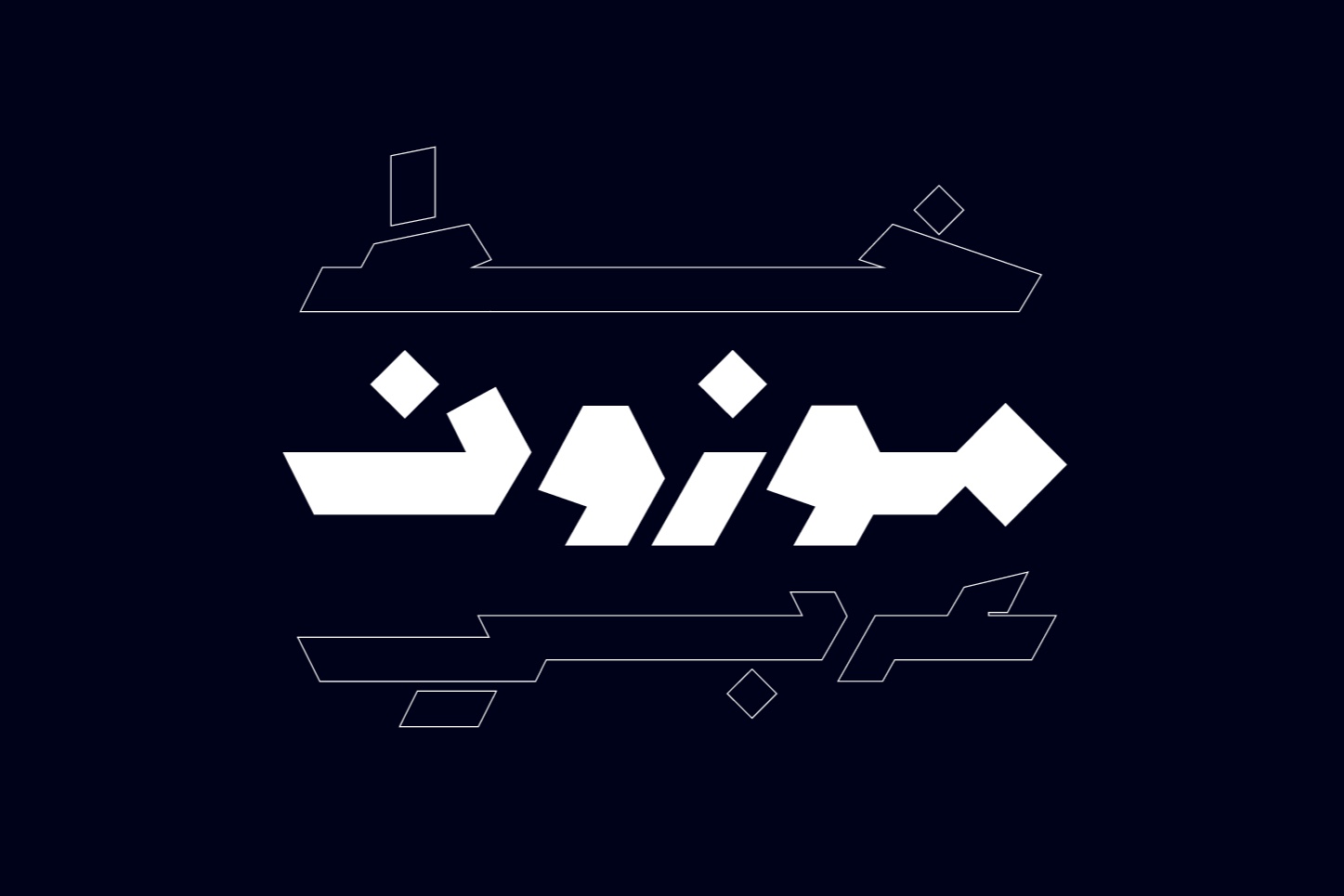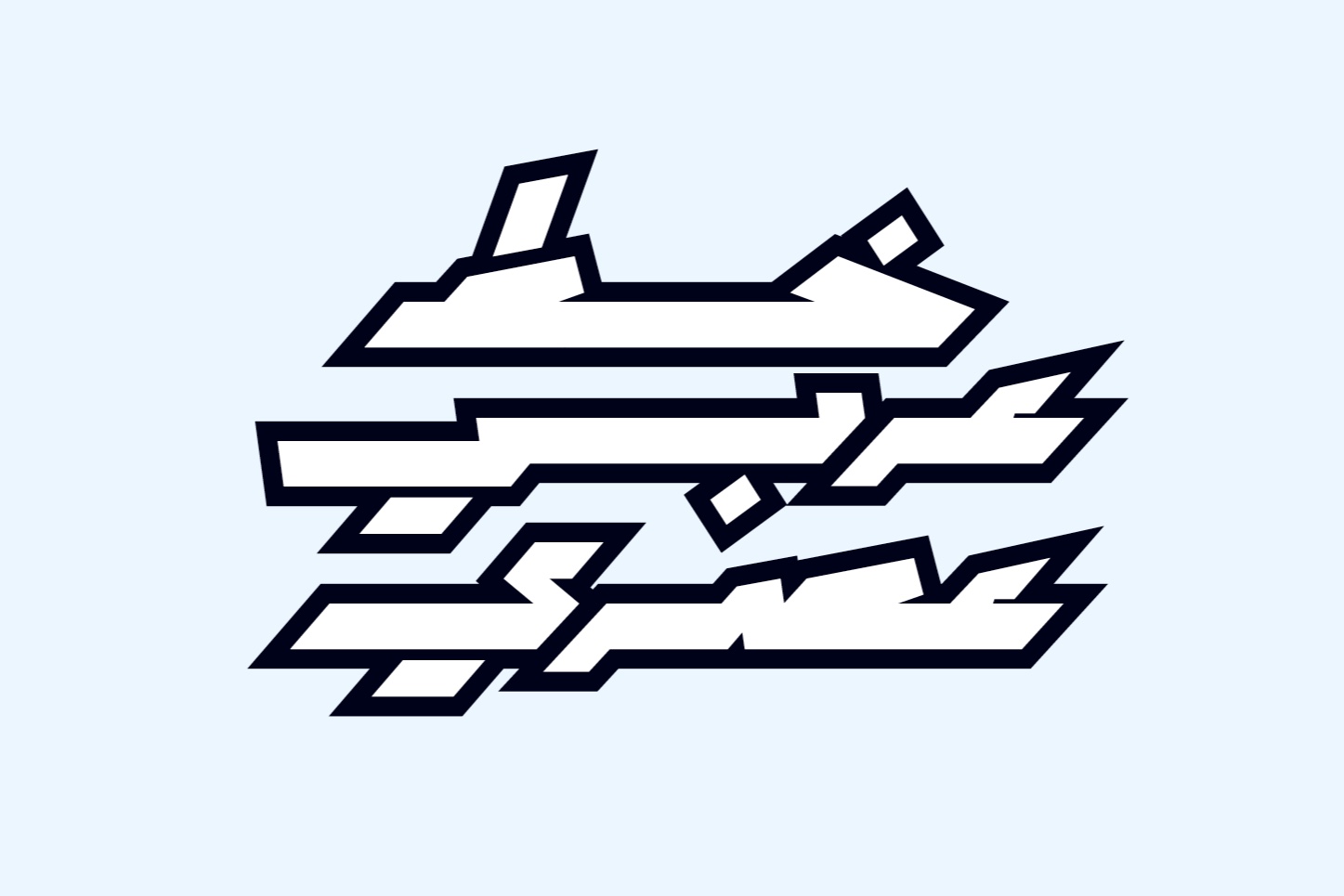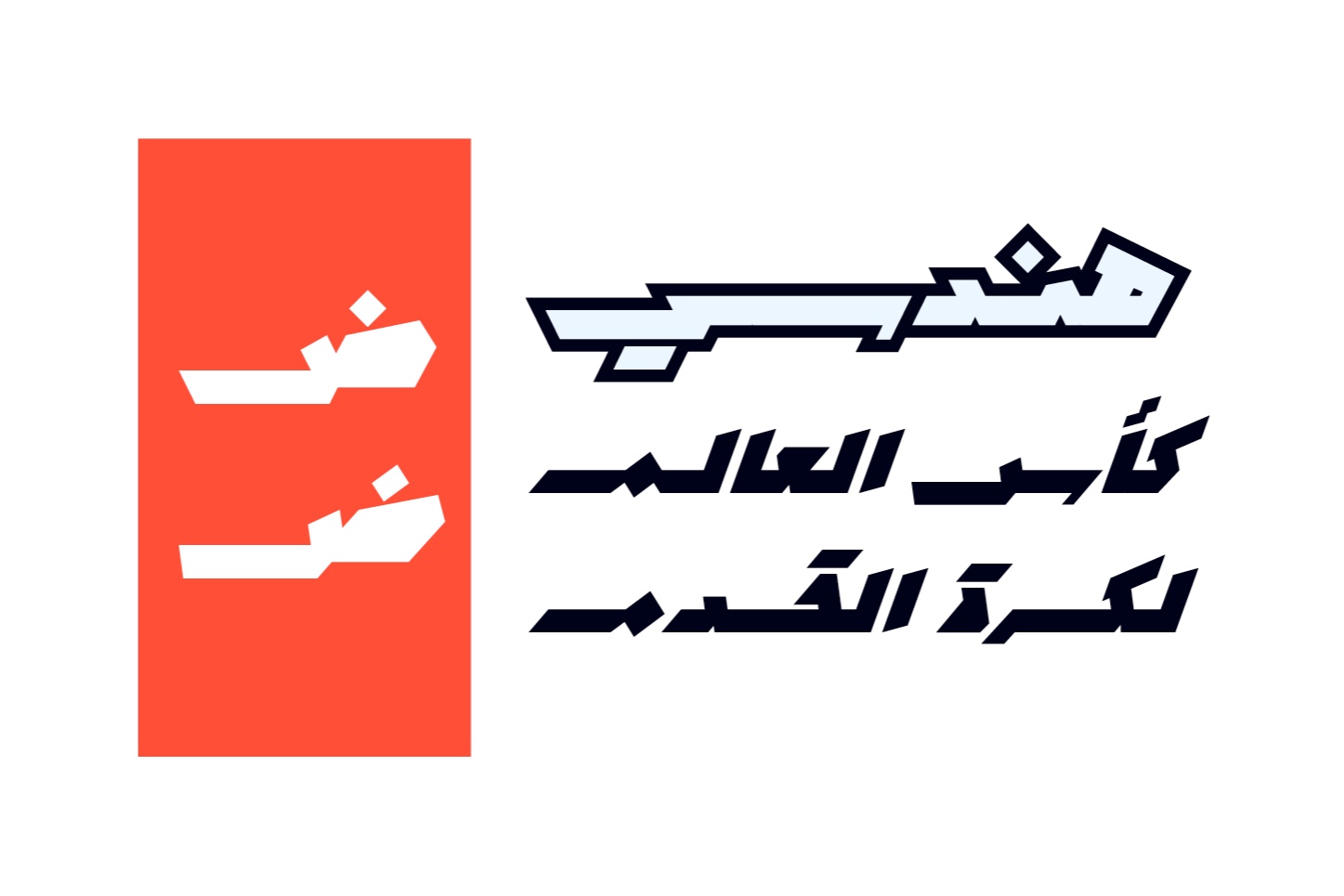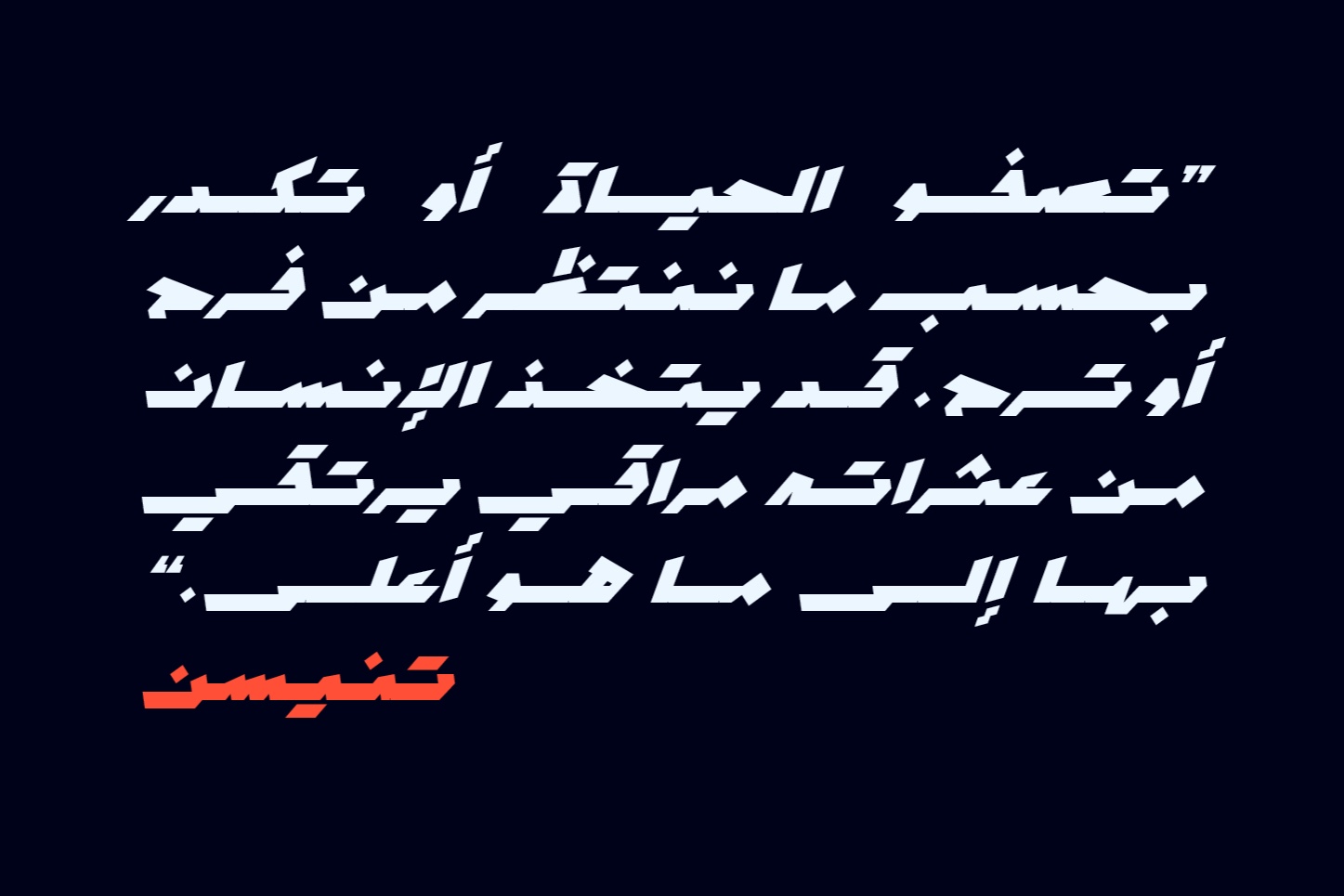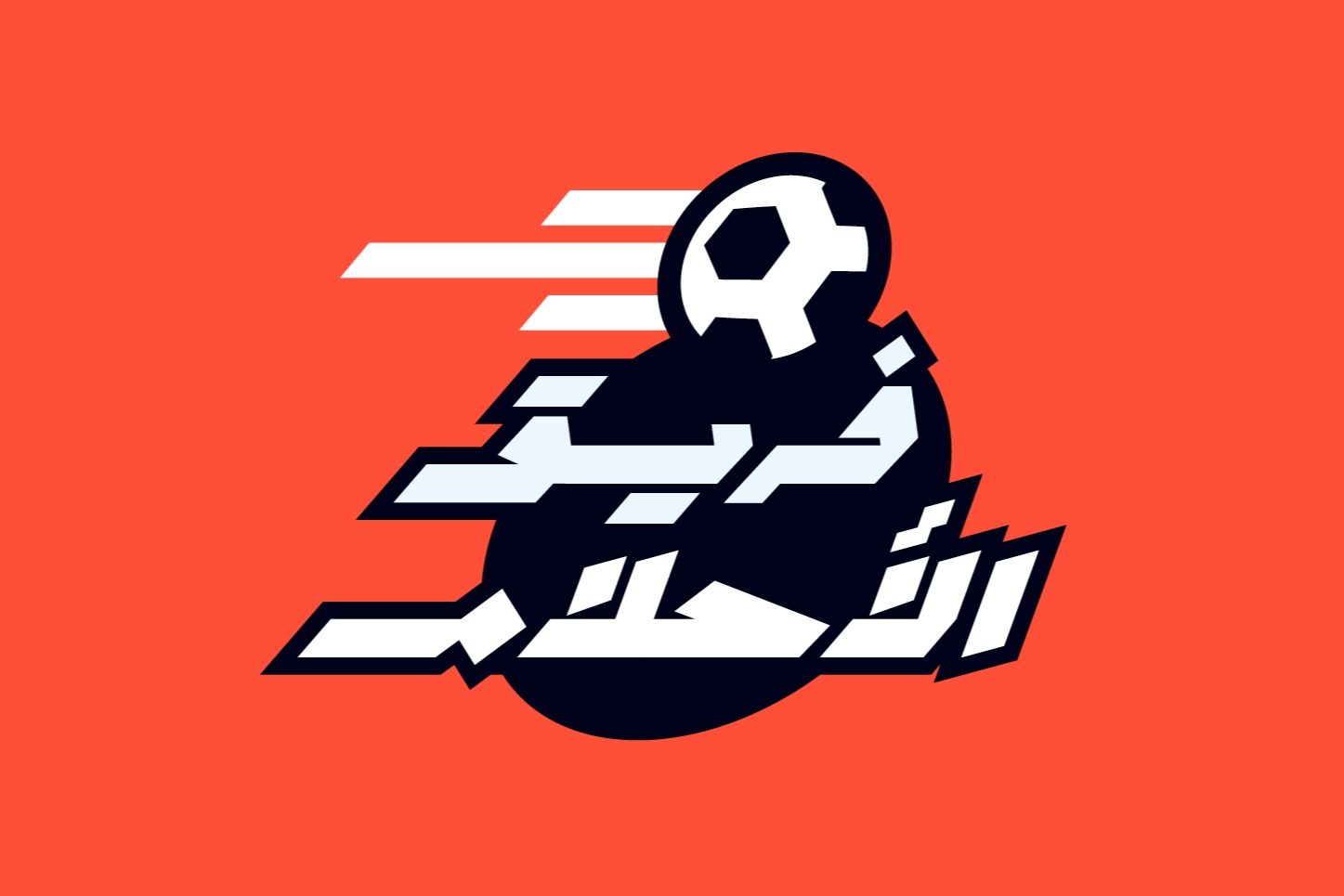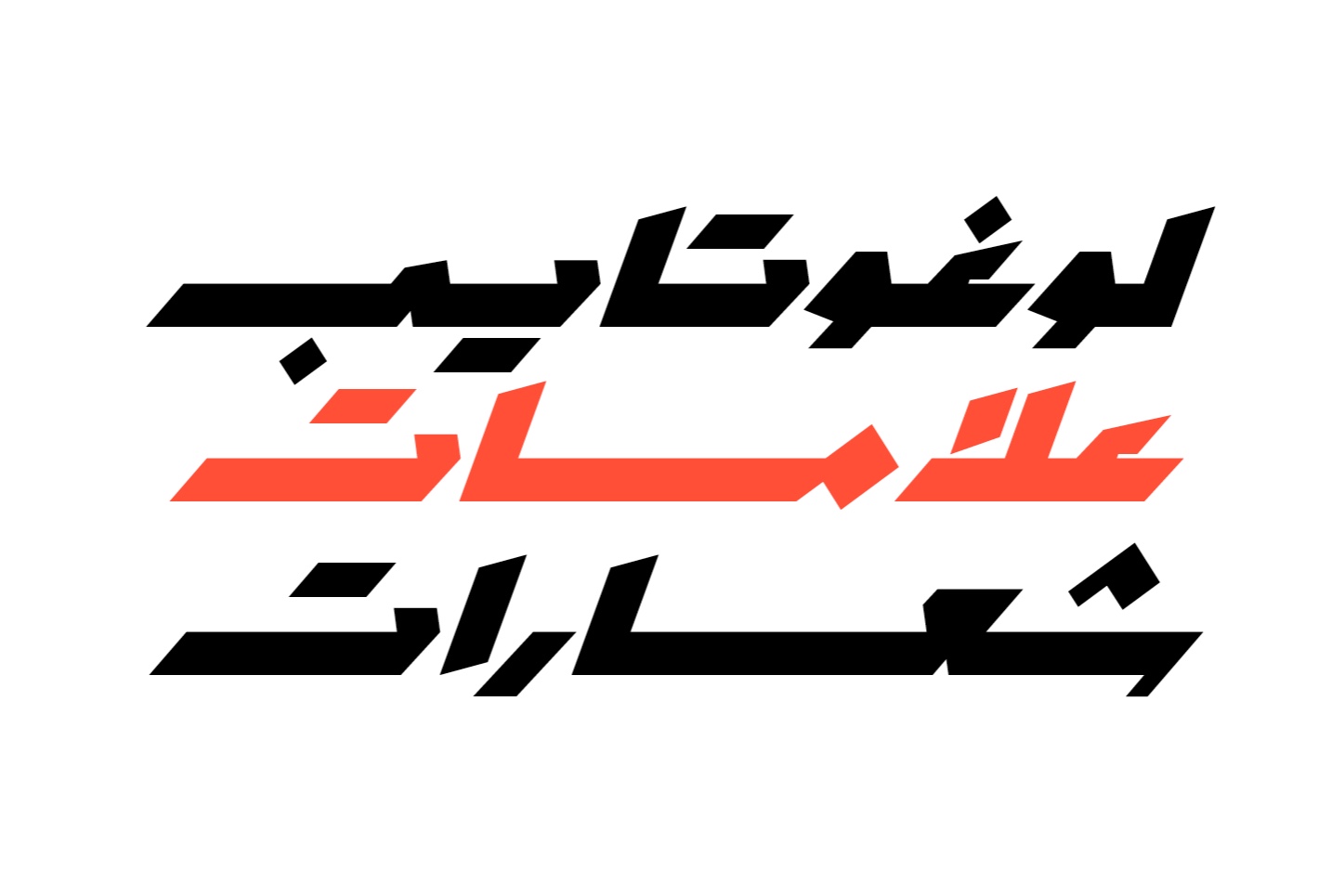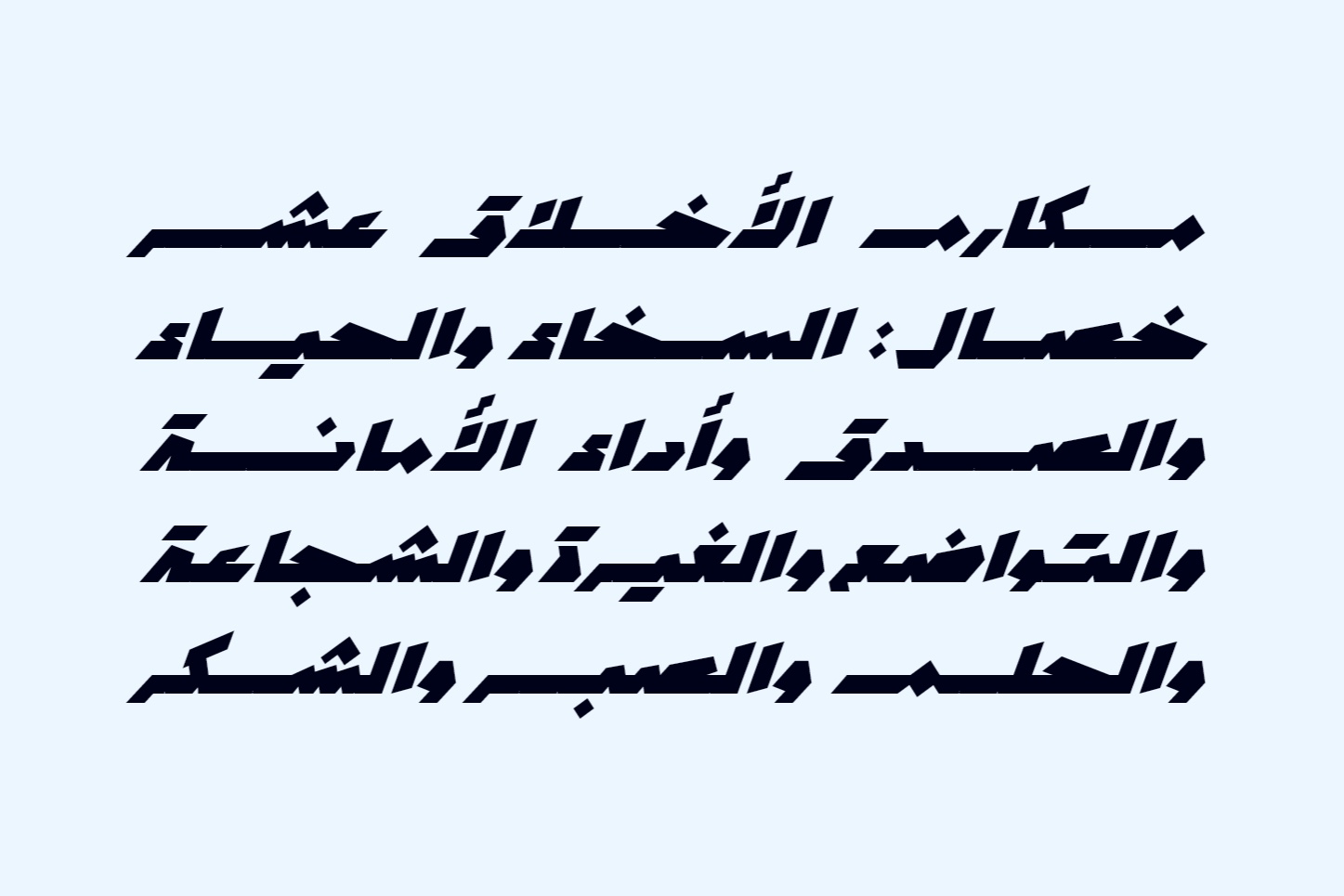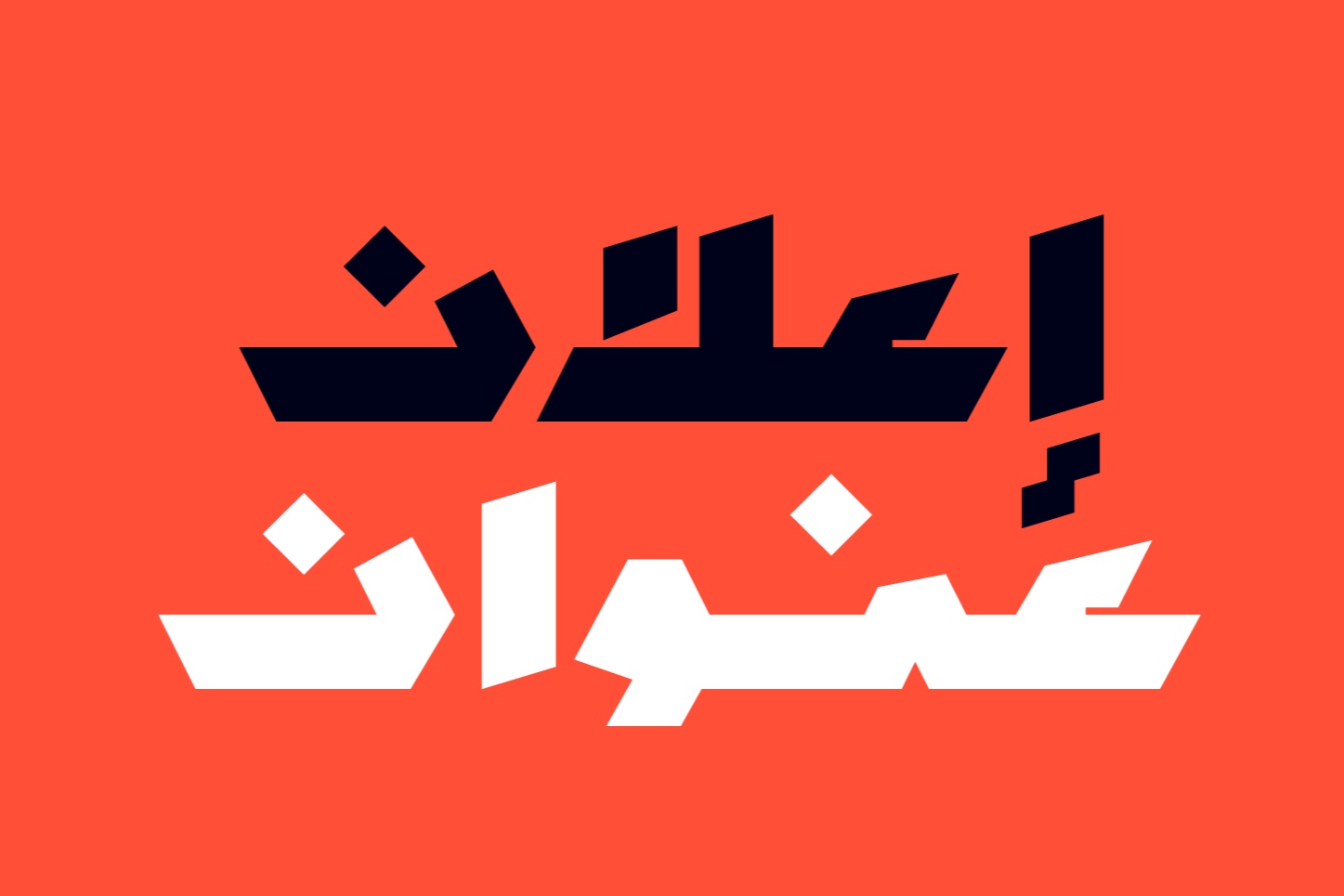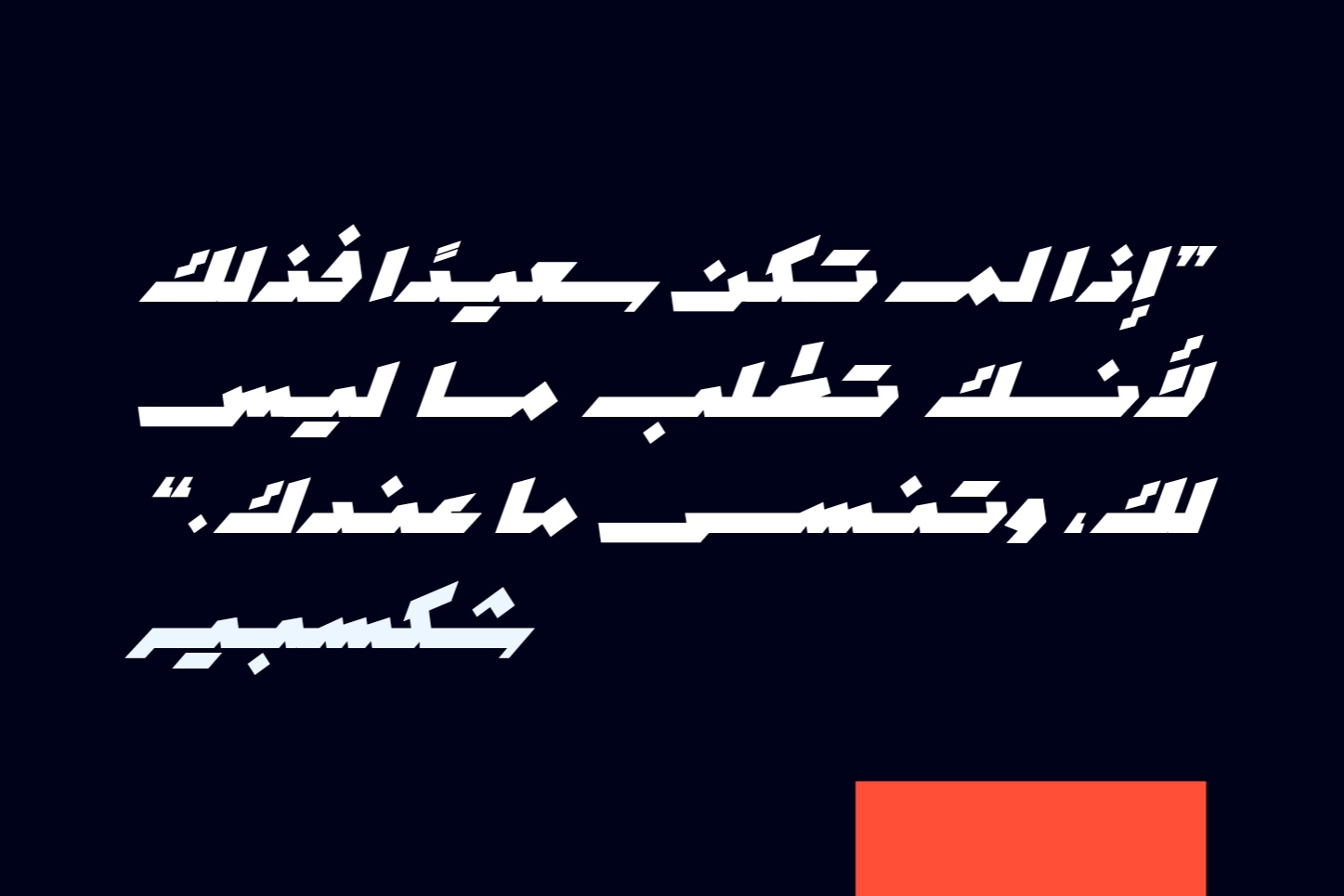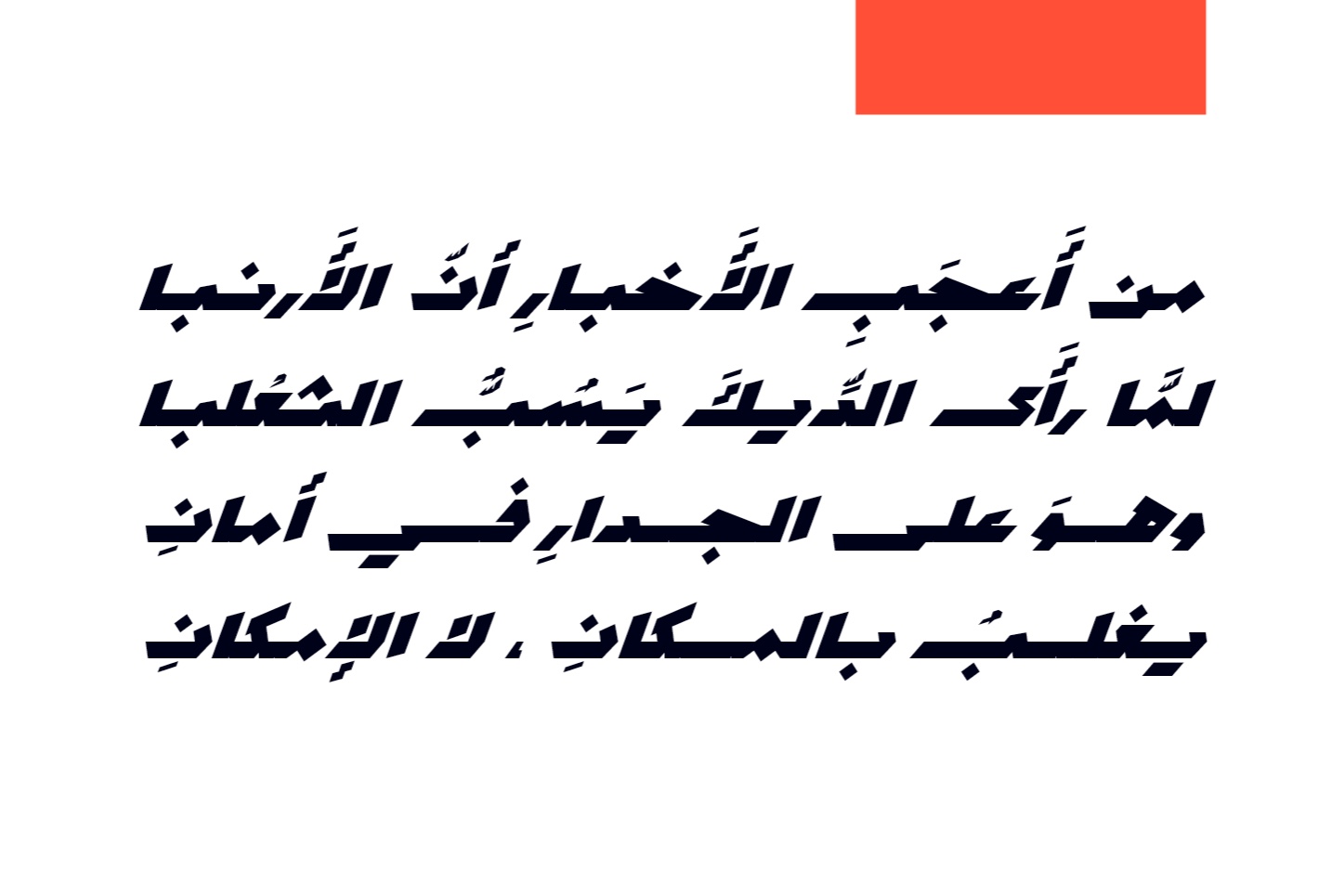
Mawzoon (the Arabic word for “Balanced”) is an Arabic display font heavily inspired by the Ruq’ah script. Its letterforms feature a solid geometric structure with sharp terminals and are available in two styles: Normal and Oblique. Mawzoon is ideal for a wide range of creative projects, including print, web, advertising, and mobile applications.
Normal and oblique